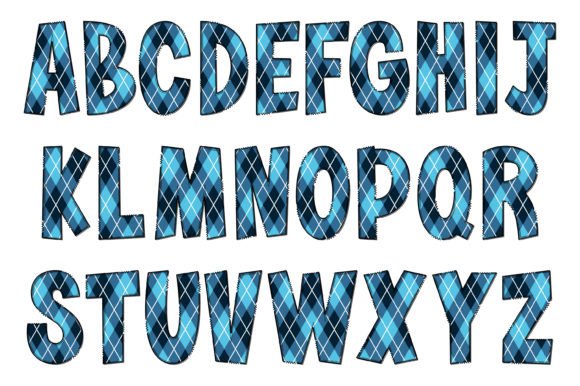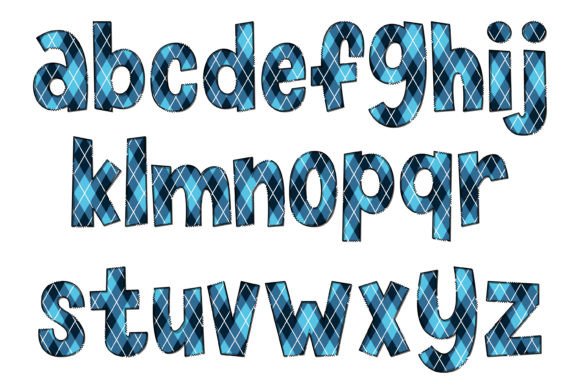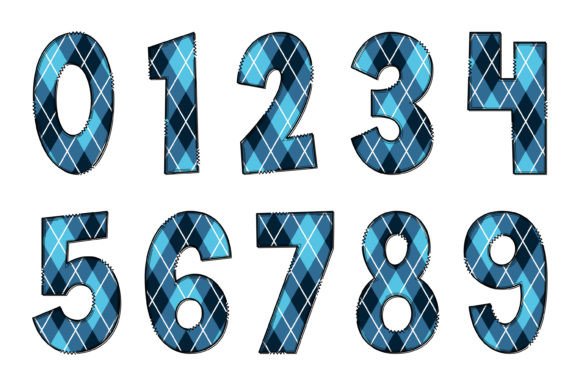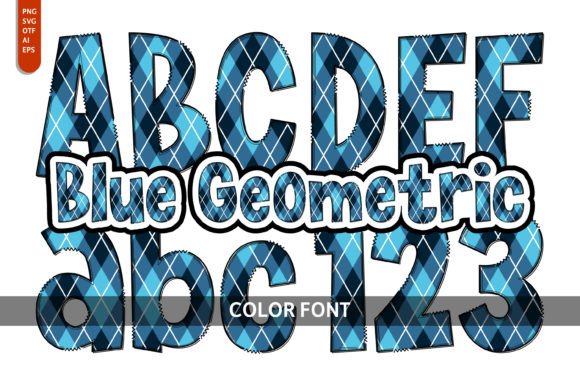
Unlocking Creativity with Blue Geometric Font: A Comprehensive Guide
Are you a designer or crafter looking to add a touch of playfulness and artistic flair to your projects? Look no further than the Blue Geometric Font. This vibrant and versatile font is perfect for a wide range of applications, from children’s books and posters to invitations, greeting cards, and more. In this article, we’ll explore the world of Blue Geometric Font, its uses, benefits, and how to get the most out of this amazing design tool.
The Power of Blue Geometric Font
Blue Geometric Font is a unique and eye-catching typeface that is sure to capture the attention of your audience. Its geometric shapes and bright blue color give it a fun and modern feel, making it perfect for designs that require a playful touch. Whether you’re creating a children’s book, a poster, or an invitation, this font is sure to add a level of sophistication and whimsy that will set your design apart.
Uses of Blue Geometric Font
So, where can you use Blue Geometric Font? The possibilities are endless! Here are a few ideas to get you started:
• Children’s Books: Blue Geometric Font is perfect for children’s books, with its colorful and whimsical design. It’s easy to read and creates an engaging reading experience for young audiences.
• Posters: Add a pop of color and fun to your posters with Blue Geometric Font. It’s perfect for promoting events, products, or services in a playful and eye-catching way.
• Invitations: Make your invitations stand out with Blue Geometric Font. It’s perfect for birthday parties, baby showers, and other celebrations.
• Greeting Cards: Add a personal touch to your greeting cards with Blue Geometric Font. It’s perfect for birthdays, holidays, and other special occasions.
What Makes Blue Geometric Font Special?
Tips for Using Blue Geometric Font
Here are a few tips for getting the most out of Blue Geometric Font:
• Experiment with Colors: While the blue color of Blue Geometric Font is stunning, don’t be afraid to experiment with other colors to match your brand or design.
• Play with Size: Blue Geometric Font looks great in a range of sizes, from small and delicate to large and bold.
• Mix and Match: Combine Blue Geometric Font with other fonts and design elements to create a unique and eye-catching design.
Blue Geometric Font is a versatile and fun design tool that’s perfect for designers and crafters looking to add a touch of playfulness and artistic flair to their projects. With its wide range of uses, benefits, and compatibility with popular design software, it’s no wonder that Blue Geometric Font is a popular choice among designers. So why not give it a try and see what amazing designs you can create?
Whether you’re a seasoned designer or just starting out, Blue Geometric Font is a great addition to your design toolkit. So go ahead, get creative, and unlock the full potential of Blue Geometric Font!